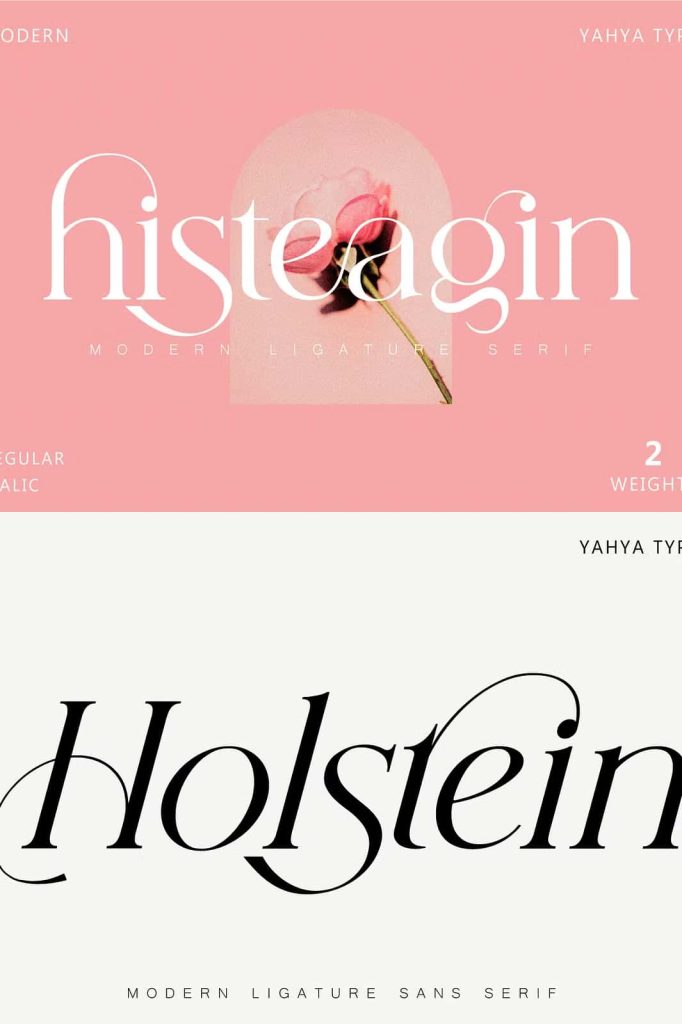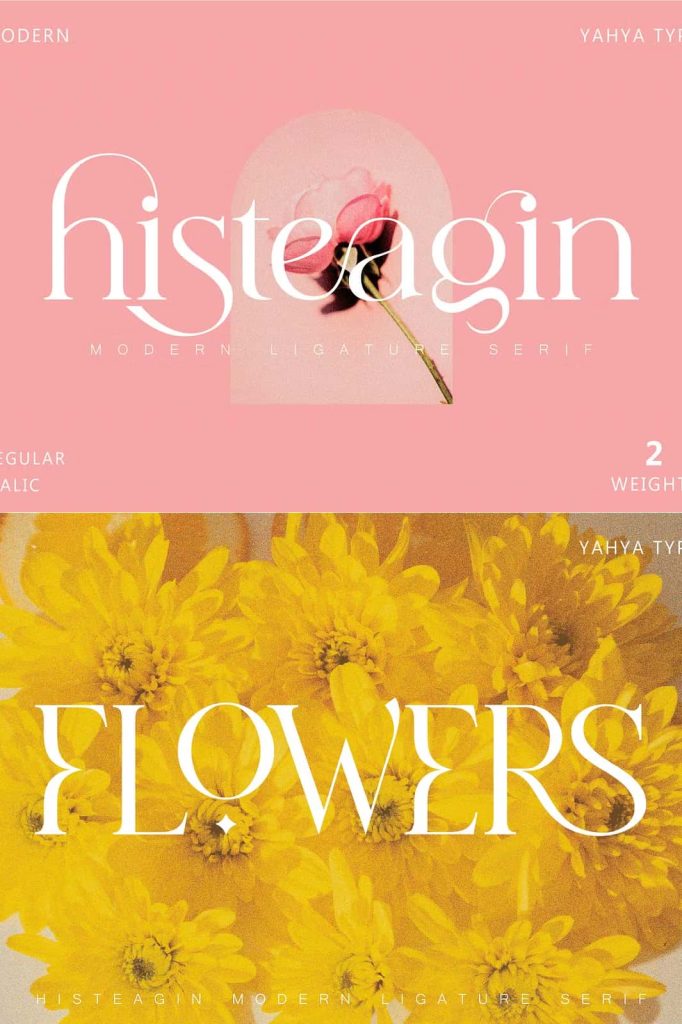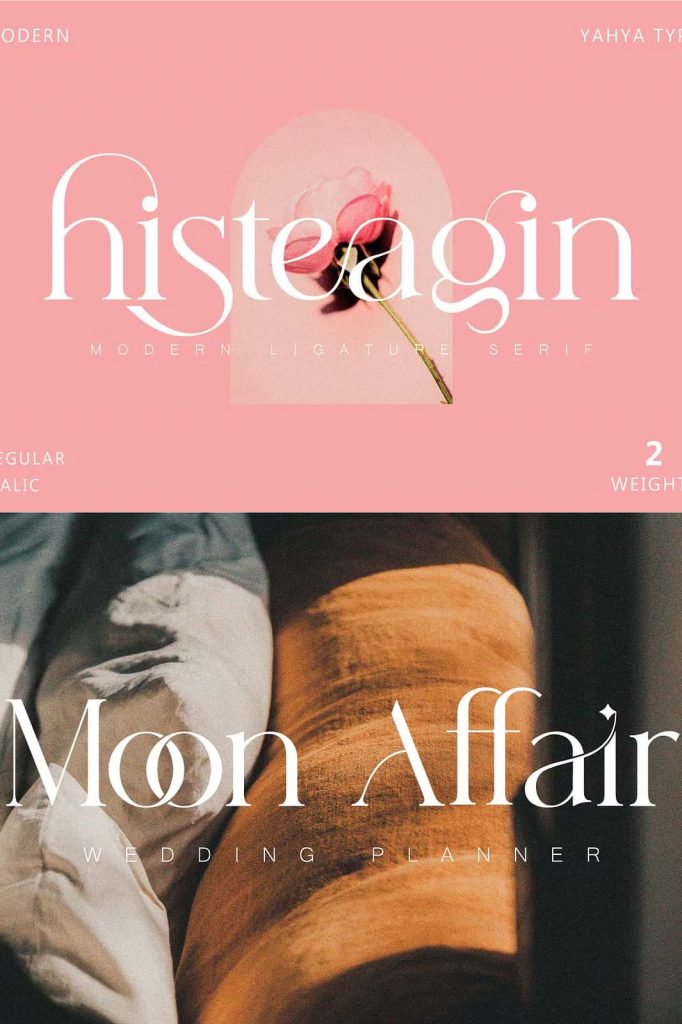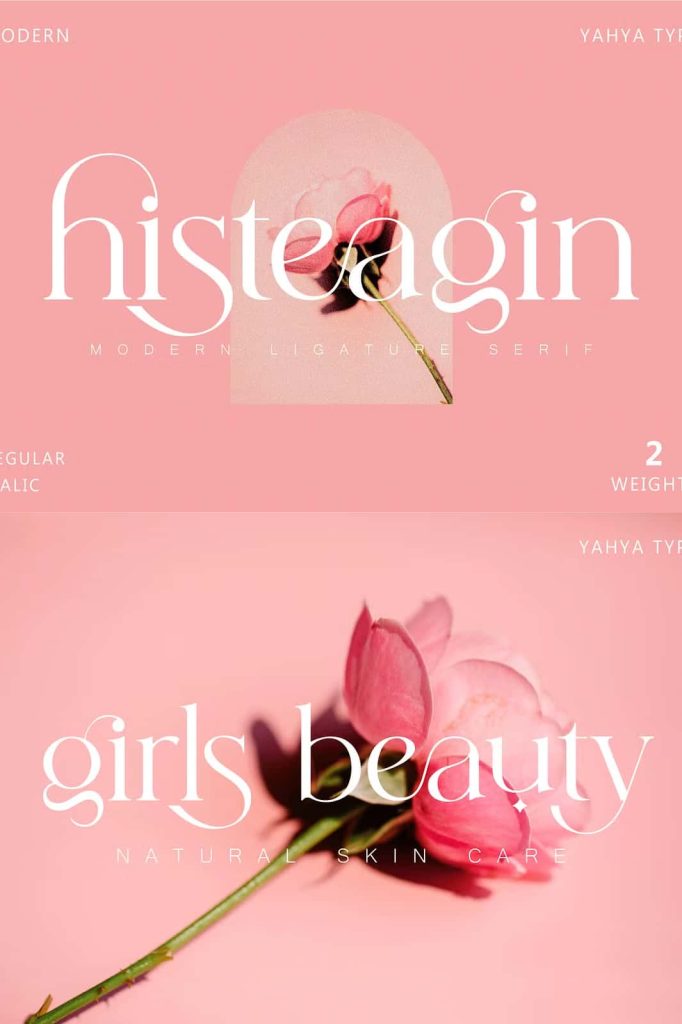
Histeagin SerifleastedApril 12, 2025Fonts Histeagin – this style works well for branding projects, logos, wedding designs, social media posts, advertisements Download